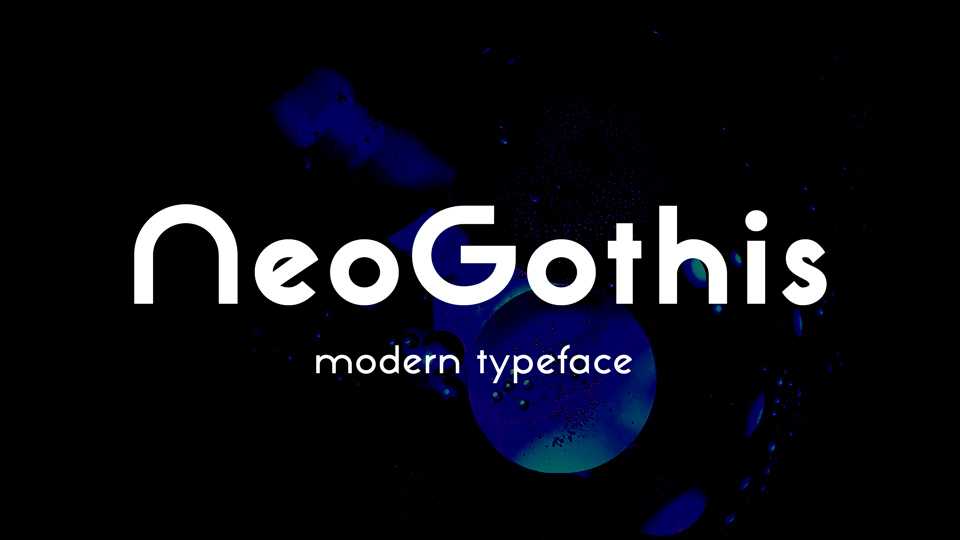
Download Neo Gothis typeface, a modern, very legible font family in six weights and Obliques that is both sober and elegant. Neo Gothis inspired by a number of fonts like the Futura, New Gothic and Eurostyle, to achieve a harmonious whole.